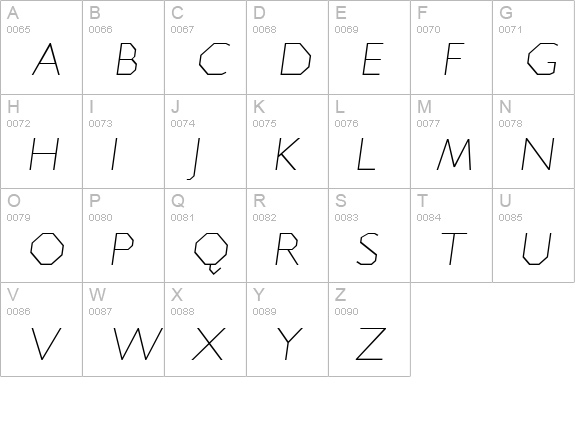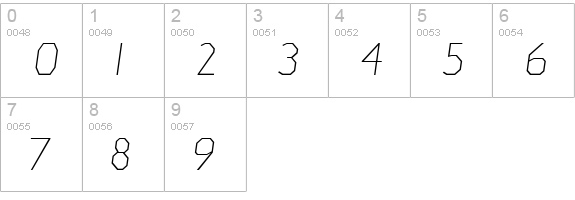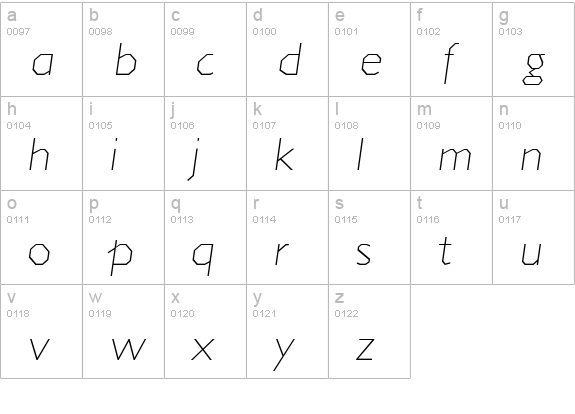
Jillican ExtraLight Italic is an airy, ultra-refined, italic variant in the Jillican typeface family \xE2\x80\x94 well suited to minimalist headlines and refined display use.
Introducing Jillican ExtraLight Italic font, a delicate and elegant typeface that exudes sophistication and modernity. With its slender and graceful letterforms, this font is perfect for adding a touch of refinement to any design project. The subtle slant of the italic style adds a sense of movement and fluidity, making it ideal for conveying a sense of elegance and style. Jillican ExtraLight Italic font is also incredibly versatile, suitable for a wide range of design applications, from branding and advertising to editorial and packaging. Its clean and crisp appearance ensures excellent readability, making it a great choice for both display headlines and body text. One of the best things about Jillican ExtraLight Italic font is that it is completely free to download at FontsMarket.com. This means that you can easily access this beautiful typeface and use it in your projects without any cost. Don't miss out on the opportunity to enhance your designs with the timeless beauty of Jillican ExtraLight Italic font.